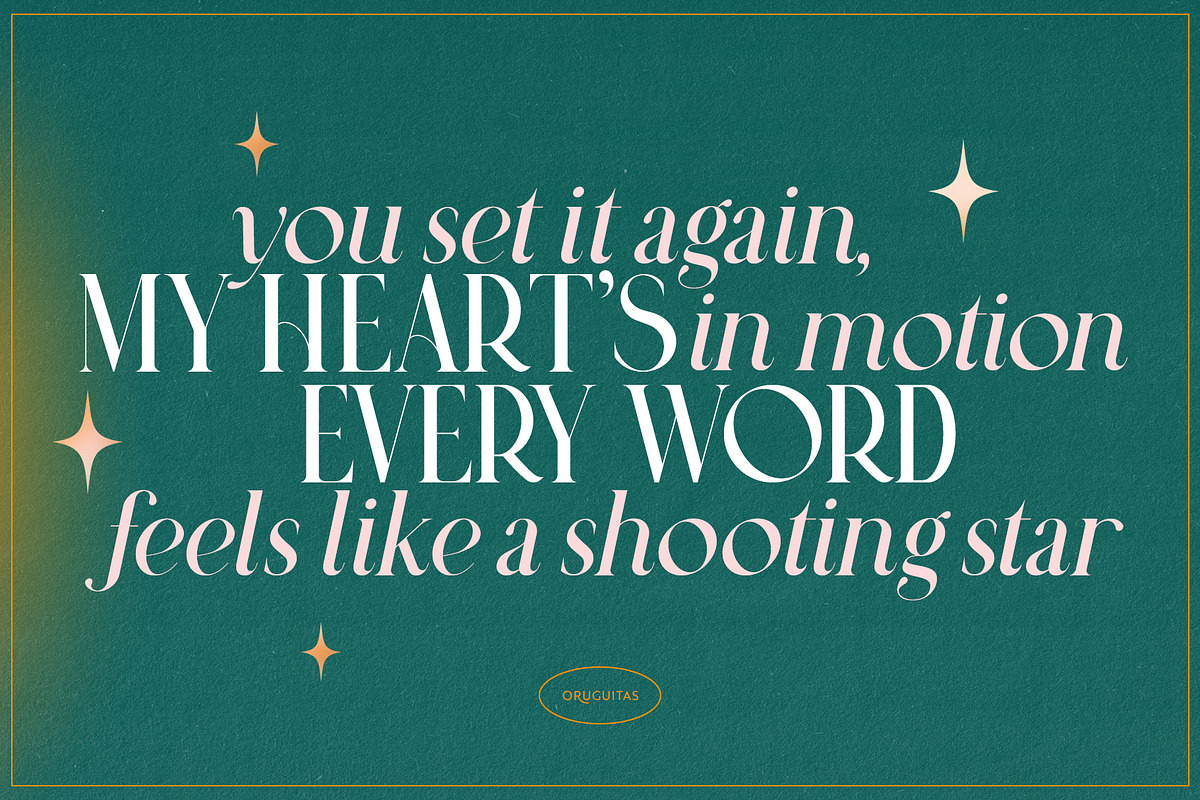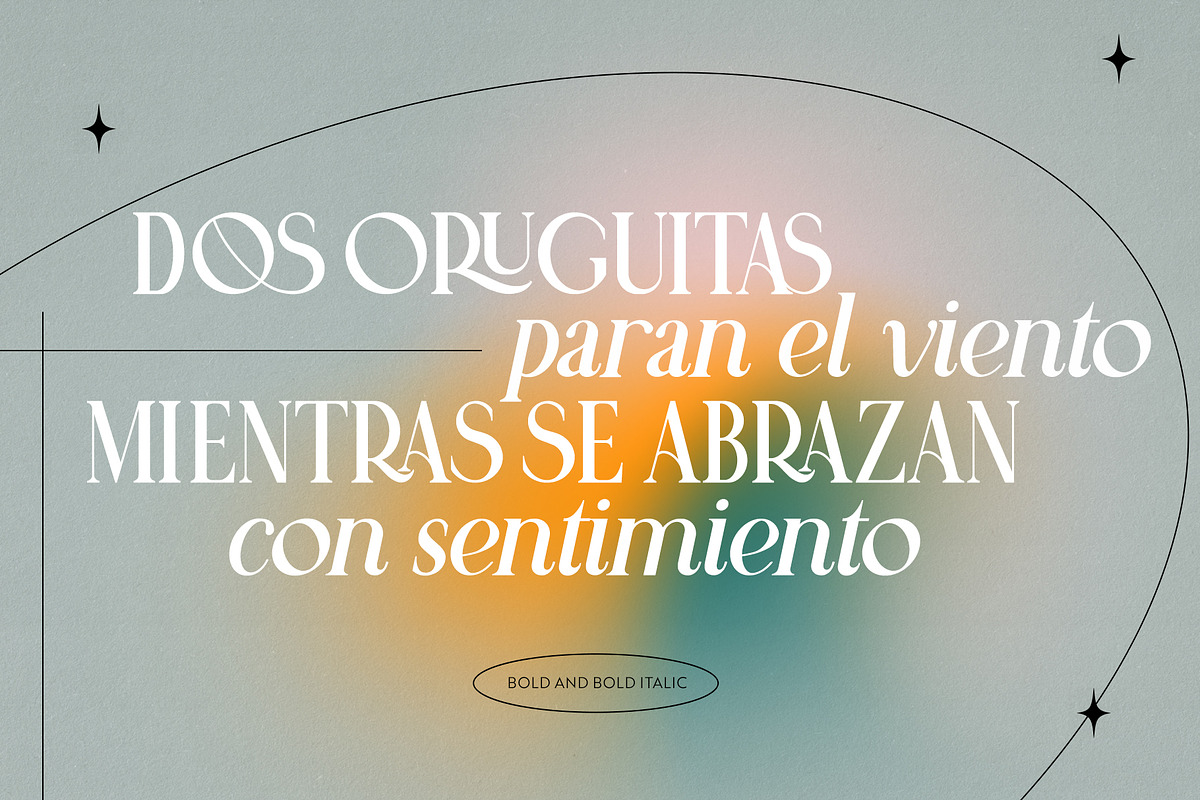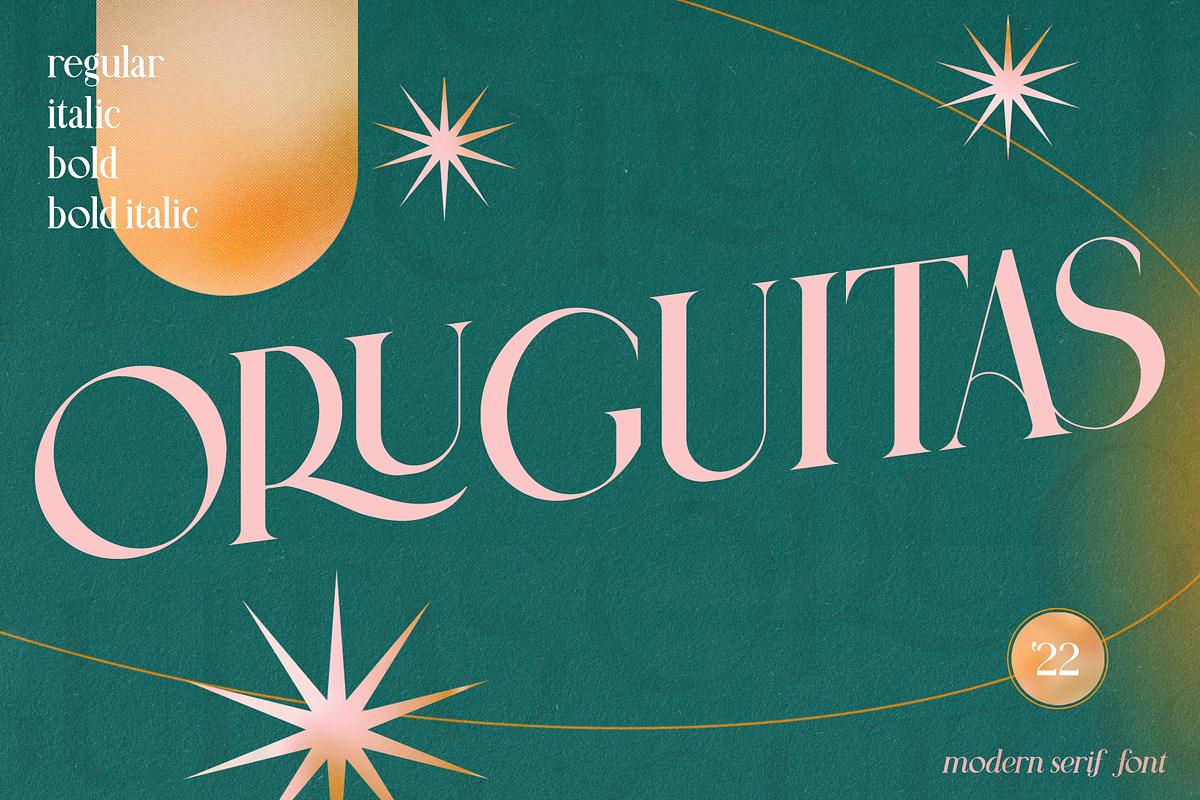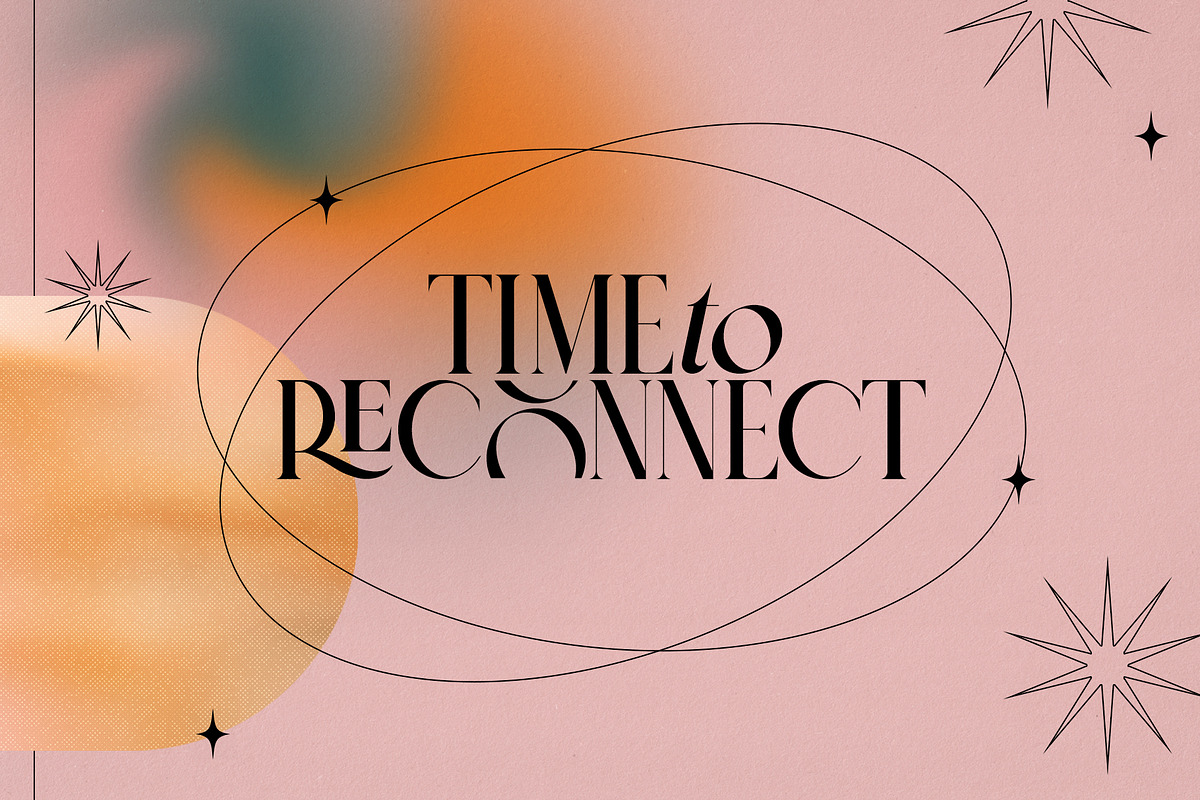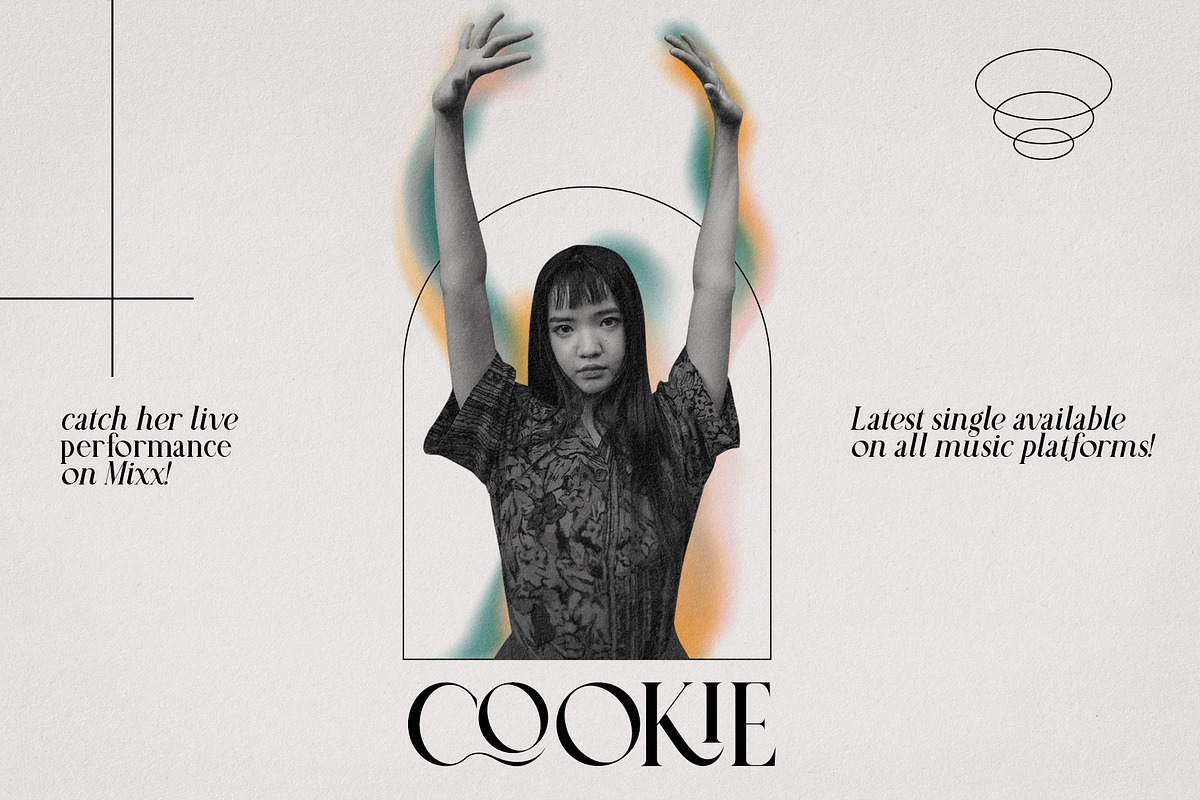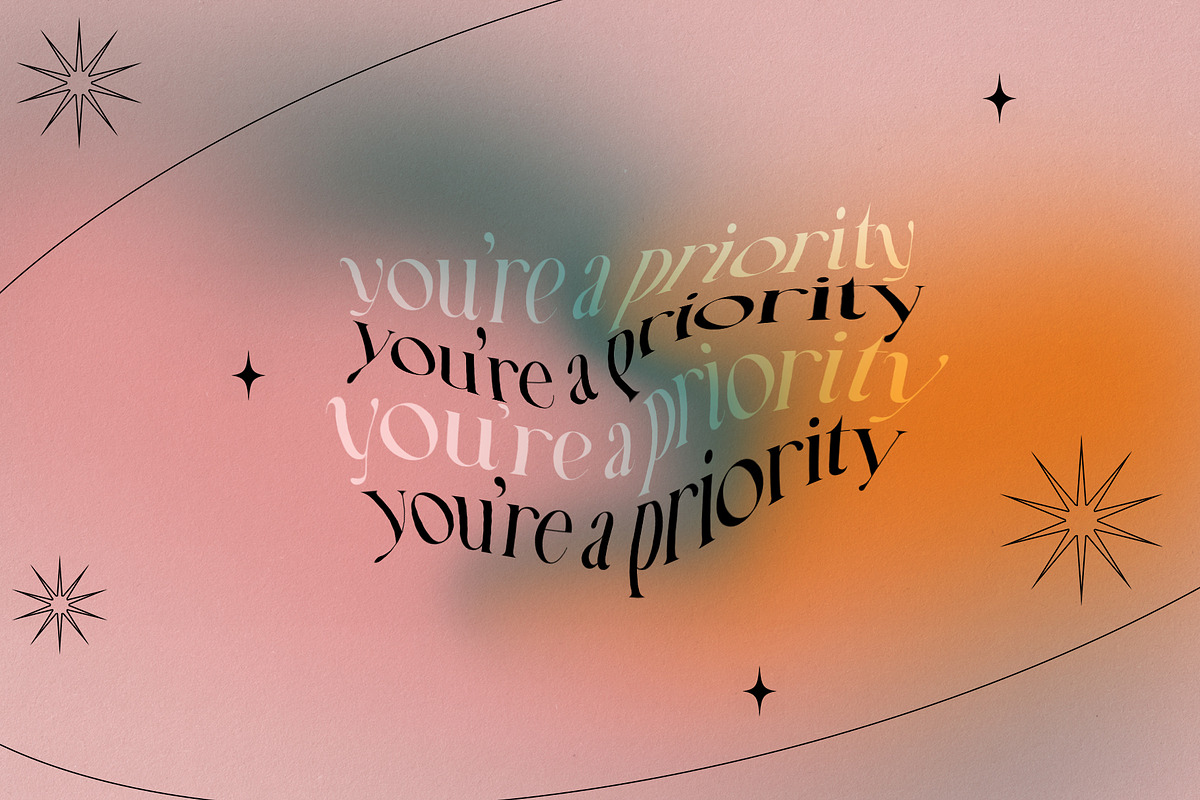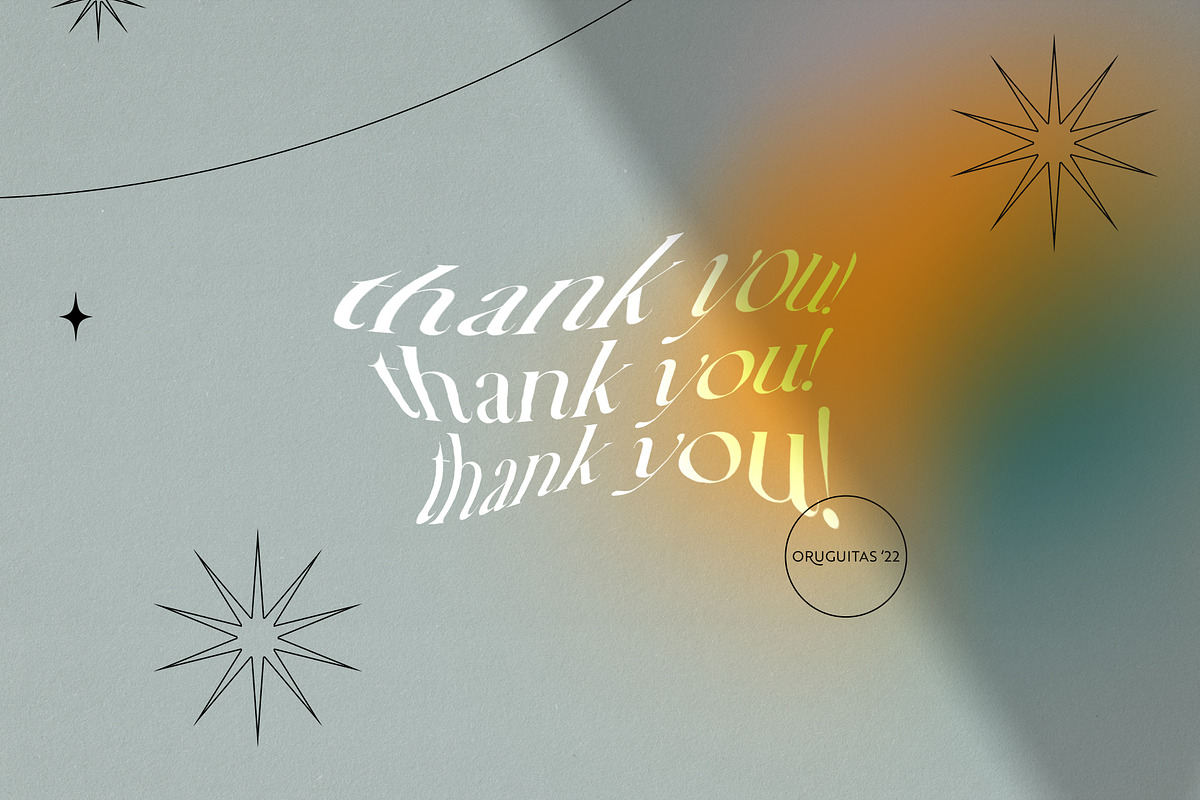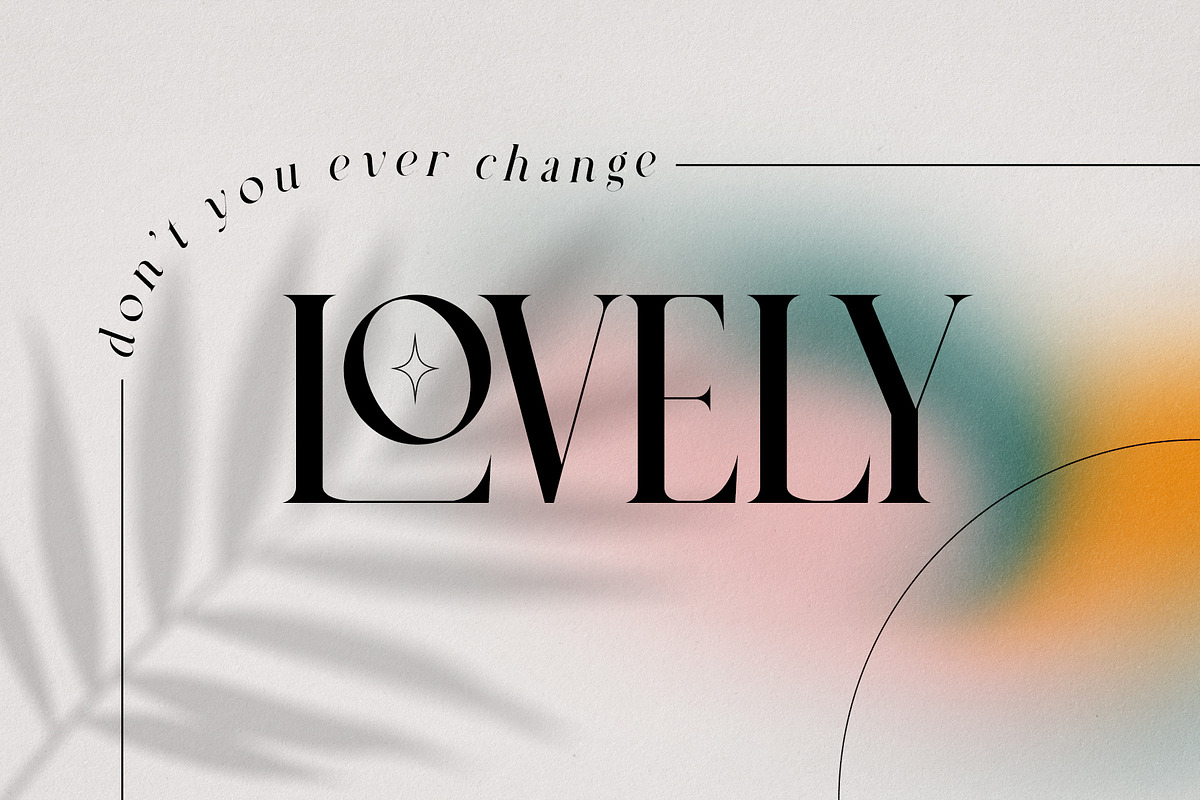
ORUGUITAS | Modern Serif Font
Introducing Oruguitas!
Oruguitas is a modern stylish font that has the characteristic of the classic familiar serif. It is completed with a set of 20 ligatures for the uppercase letters to create a more aesthetic look on your design. The regular and italic styles are made to complement each other in various ways but most especially to create emphasis on your text design.
The design of the font is a combination of bold and super thin lines to give a more classic style but still retaining the readability even when in a small font size.
Ligatures List: AS CO EE KI LA LE LI LO LS LU OS QU RA RE RI RO RS RU TS ZO